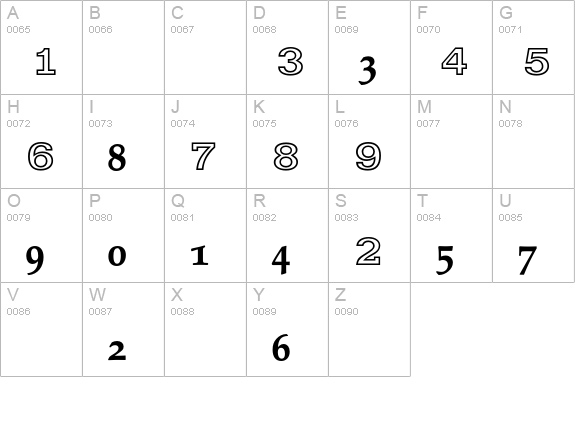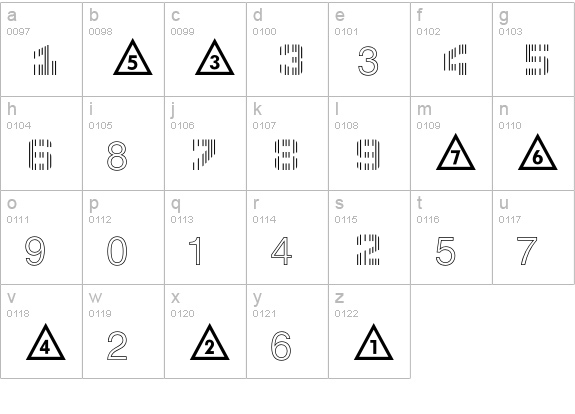
NumericsP10 Font Details
NumericsP10 font is a versatile and modern typeface that exudes professionalism and clarity. Featuring clean lines and a sleek design, this font is perfect for a wide range of design projects, from corporate presentations to website headers. What sets NumericsP10 font apart is not only its aesthetic appeal but also its functionality. With a wide range of characters and symbols, including numerals and mathematical symbols, this font is a valuable addition to any designer's toolkit. Best of all, NumericsP10 font is available for free download at FontsMarket.com. Whether you're a seasoned graphic designer or a hobbyist looking to add a touch of sophistication to your projects, NumericsP10 font is sure to impress. Download it today and elevate your design projects to the next level.